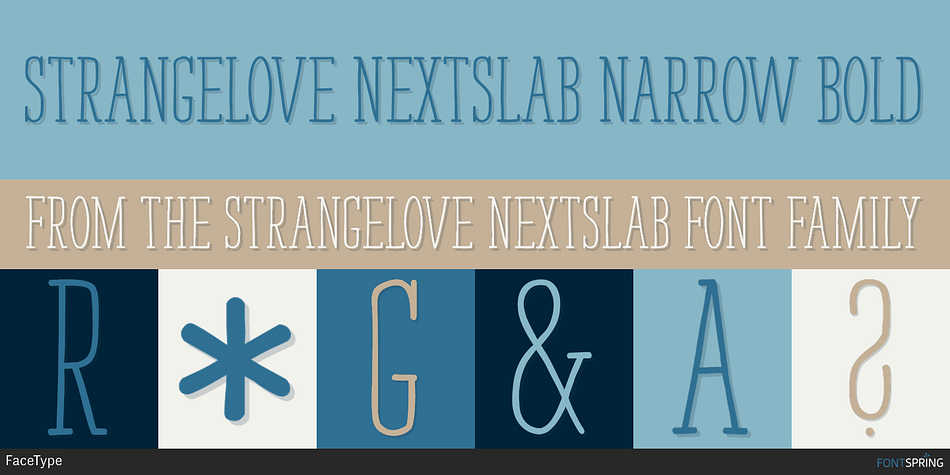
STRANGELOVE NEXTSLAB NARROW BOLD
Strangelove NextSlab is a hand display slab font family. This typeface has six styles and was published by FaceType.
Strangelove NextSlab is a serif version of our bestseller Strangelove Next.
Strangelove NextSlab is a serif version of our bestseller Strangelove Next. It contains 3 styles with two weights each.
(Be sure to have ÔContextual AlternatesÕ activated in your design app of choice to get a more lively look when it comes to subsequent letters like ee, gg ... etc).